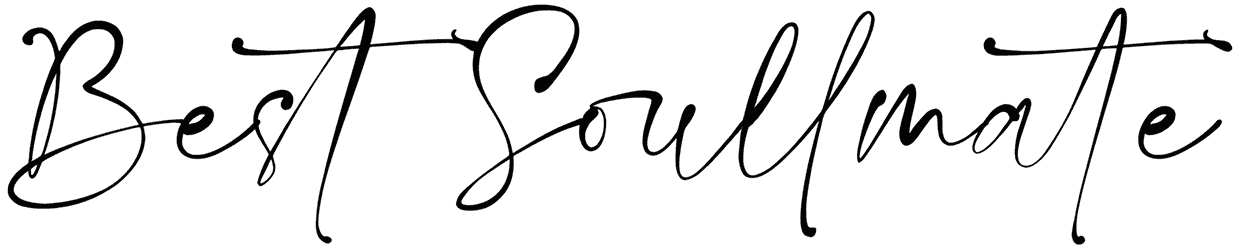
Best Soullmate Font
Present a lovely and elegant project with this modern autograph font and be impressive. Best Soullmate, with its casual and smooth pen-lettered style, is one of the best items to create a unique design. With an almost full cover of characters, this handwritten font can be a perfect choice for your novel projects, from presentations to Instagram posts.